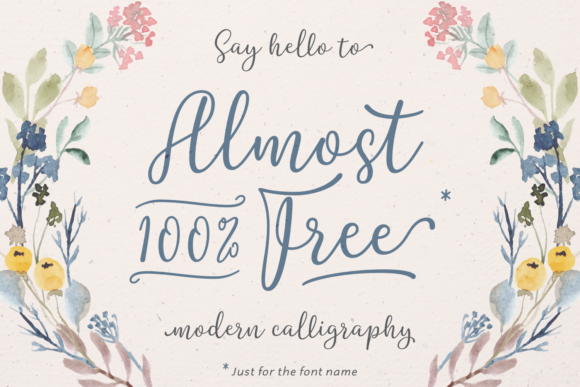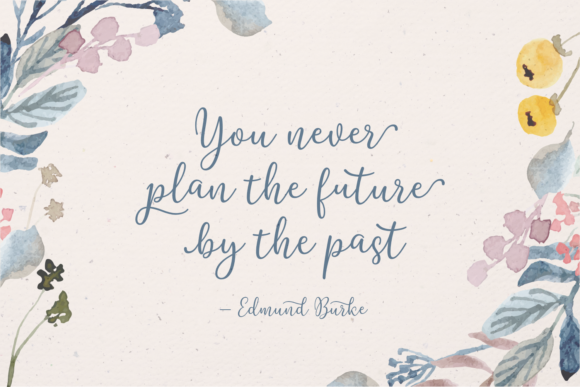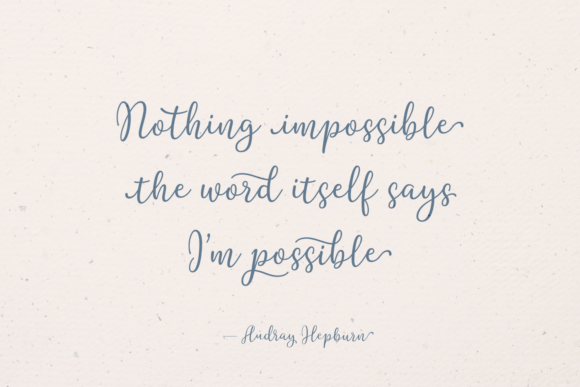
HomeScript FontsAlmost 100% Free Font Script Fonts Almost 100% Free Font FacebookXPinterestWhatsApp Almost 100% Free Font Poster 2 Almost 100% Free Font Poster 3 Almost 100% Free Font Poster 4 About Almost 100% Free Font Almost 100% Free is a stunning script that pays homage to classic calligraphy. Get inspired by its bold feel! DOWNLOAD ON CREATIVE FABRICAThis font is sold and delivered by Creative Fabrica. Font Canyon may earn a commission if you buy through this link. People also explored Highlight Font Snowball Font Ghost Battle Font Scallop Font Mighttel Font Bernardo Font Camila Font Word Milk Font Ninja Font 342 0 TagsAlmost 100% Free Font Previous articleGrahamo FontNext articleBhanchet Font LEAVE A REPLY Cancel reply Comment: Please enter your comment! Name:* Please enter your name here Email:* You have entered an incorrect email address! Please enter your email address here Website: Save my name, email, and website in this browser for the next time I comment. Personal Use Free Rionaldo Angelo Personal Use Free Read more about this font Houstonville Personal Use Free Read more about this font Gaboed Personal Use Free Read more about this font Stone Garden Personal Use Free Read more about this font BLOG Free vs Paid Fonts: Why Investing in Premium Fonts Is Worth It Free vs Paid Fonts: Why Premium Fonts Are Worth It in 2025 The debate of free vs paid fonts continues in the design world. While... The 10 Best Handwriting Fonts to Add Personality to Your Designs Using Fonts in Digital Marketing: Tips to Strengthen Your Brand Identity Where to Buy American Fonts Online in 2024